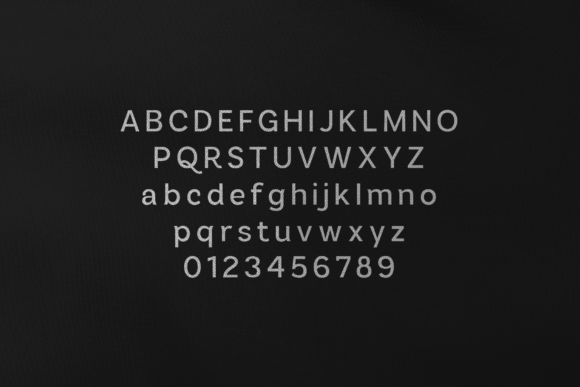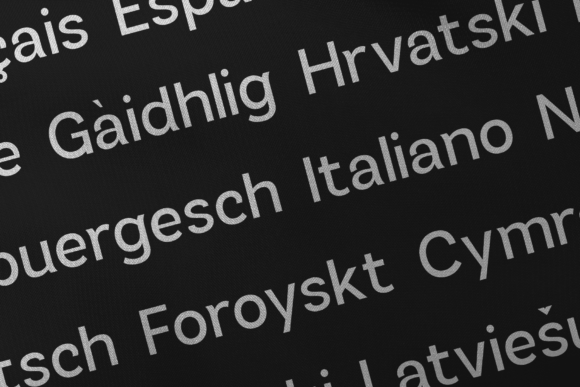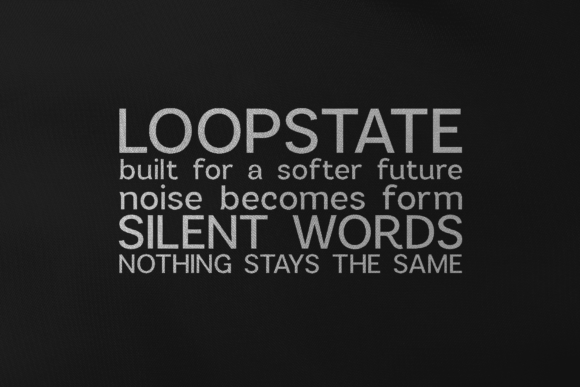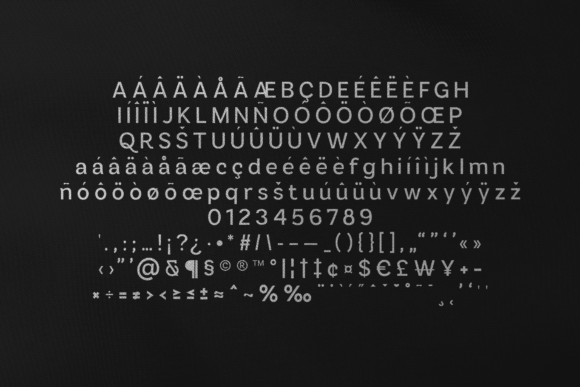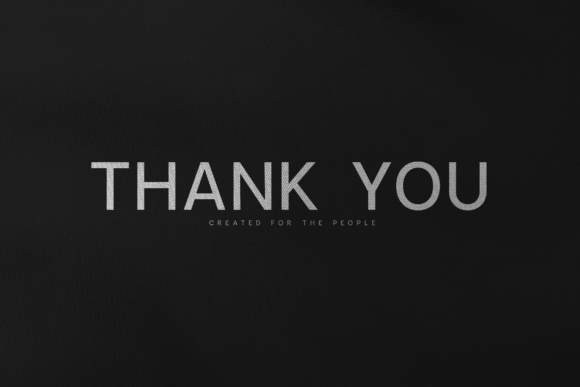
Introduction to Modo Font
Have you ever stared at a blank canvas, wondering how to bring your creative vision to life? The moment of truth arrives when you need to choose the perfect font to set the tone for your design. For designers, selecting the right font can make all the difference between a mediocre and a mesmerizing project. That’s where the Modo Font comes in – a modern minimal sans serif font designed to elevate your clean typography, contemporary branding, and editorial layouts to the next level.
With its balanced proportions, smooth curves, and exceptional readability, the Modo Font is a design resource that’s hard to resist. Whether you’re working on a free download project or a high-end commercial campaign, this versatile font is sure to deliver. From logos to posters, websites to UI design, and social media graphics to packaging, the Modo Font is the perfect companion for your creative project.
What sets the Modo Font apart is its ability to add a touch of elegance and clarity to any design. With its transparent background and high-quality design, this font is perfect for modern design systems where simplicity and structure matter. For designers who value timeless aesthetics, the Modo Font is an invaluable asset that’s sure to become a go-to choice for years to come.
Key Features of Modo Font
- Unique characteristics include a sleek, sans-serif design and a wide range of style options.
- Supports various languages, making it a versatile design resource for international creative projects.
Honest Review: Modo Font
I recently stumbled upon the Modo Font, and I’m excited to share my thoughts on this design resource. As a designer, I’m always on the lookout for high-quality fonts that can elevate my creative projects. The Modo Font is a beautiful, modern sans-serif font that’s perfect for a wide range of applications.
- ✨ High-quality design: The Modo Font is meticulously crafted with a focus on legibility and aesthetic appeal.
- ✨ Versatile: The font is suitable for both digital and print designs, making it a great addition to any designer’s toolkit.
While the Modo Font is a great resource, there are a few limitations to be aware of:
- ⚠️ Limited character set: The font’s character set is not as extensive as some other fonts on the market.
- ⚠️ Not suitable for complex text: Due to its modern design, the Modo Font may not be the best choice for complex or formal text.
Overall, I’m impressed with the Modo Font. It’s a beautiful, high-quality font that’s perfect for designers looking for a modern sans-serif option. While it may have some limitations, the benefits far outweigh the drawbacks. I highly recommend giving it a try for your next creative project!
Modo Font is perfect for any design project that requires high-quality typography, such as brochures, business cards, and social media graphics.
For the best results, use Modo Font in conjunction with other high-quality design resources, such as images and graphics. Experiment with different font sizes and styles to create a unique look for your design project.
Yes, Modo Font is highly customizable. With its transparent background and high-quality design, you can easily adjust the font’s size, color, and style to fit your specific design needs. Additionally, Modo Font supports OpenType features, allowing you to access advanced typography options and create unique designs for your creative project.